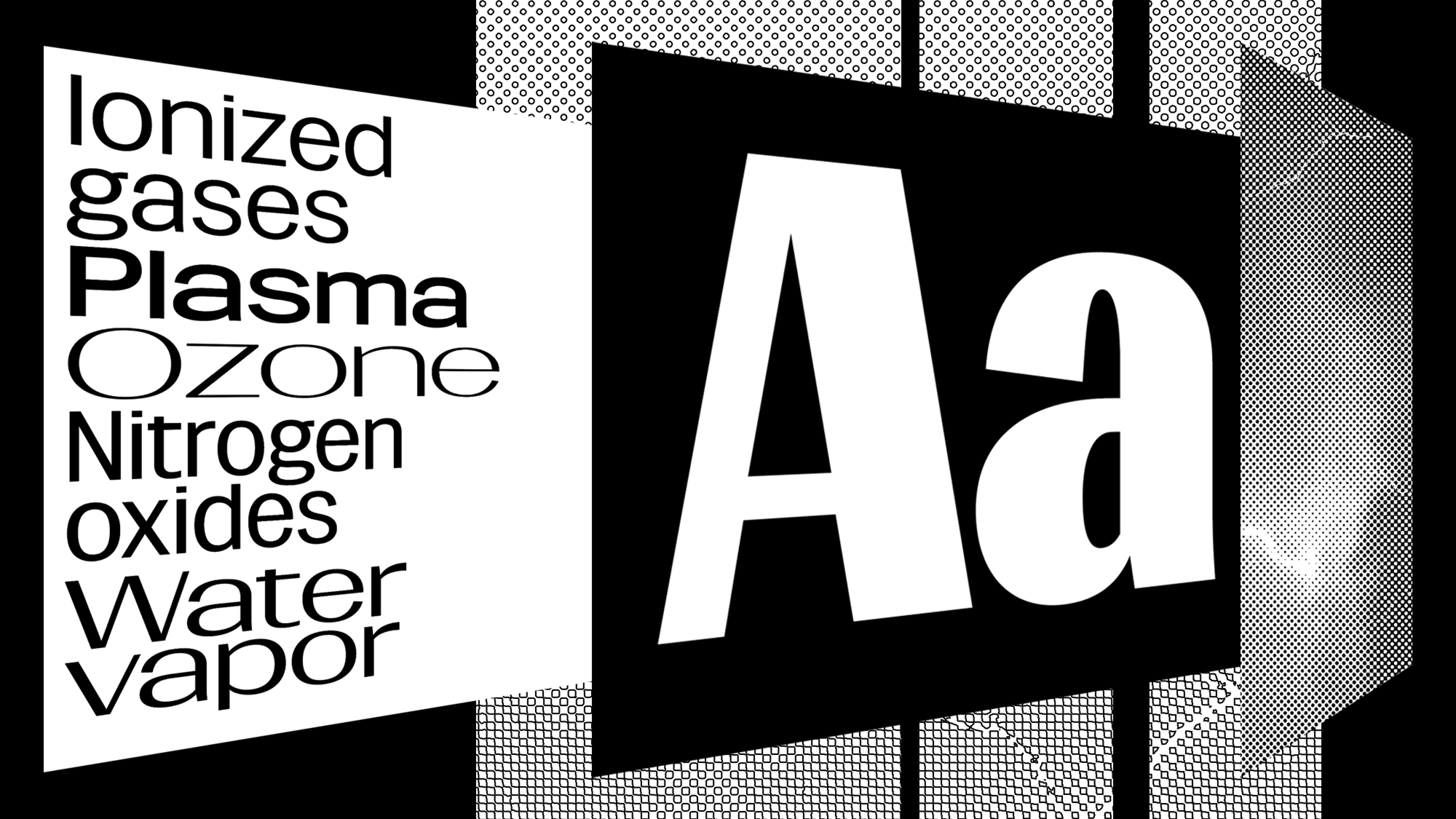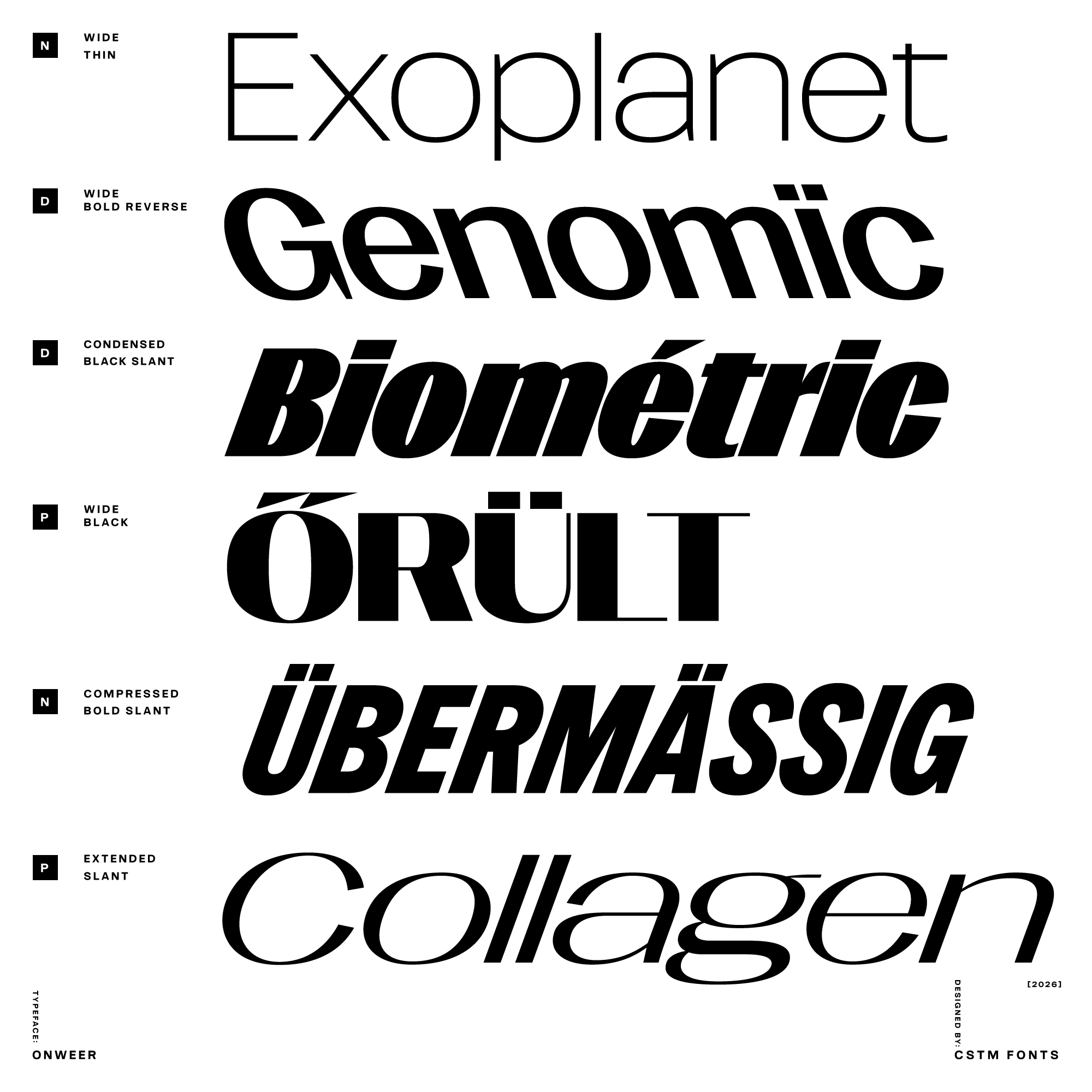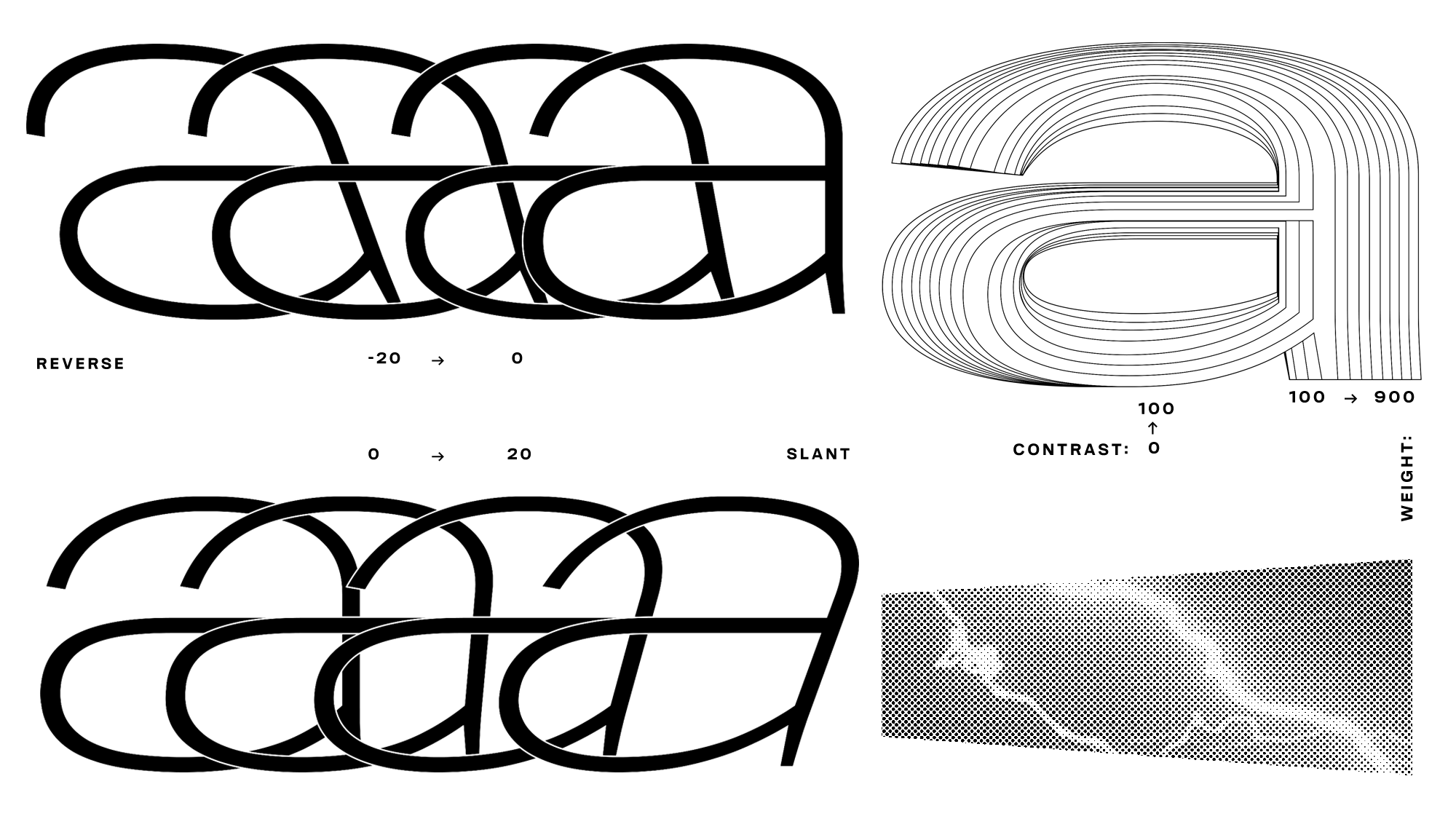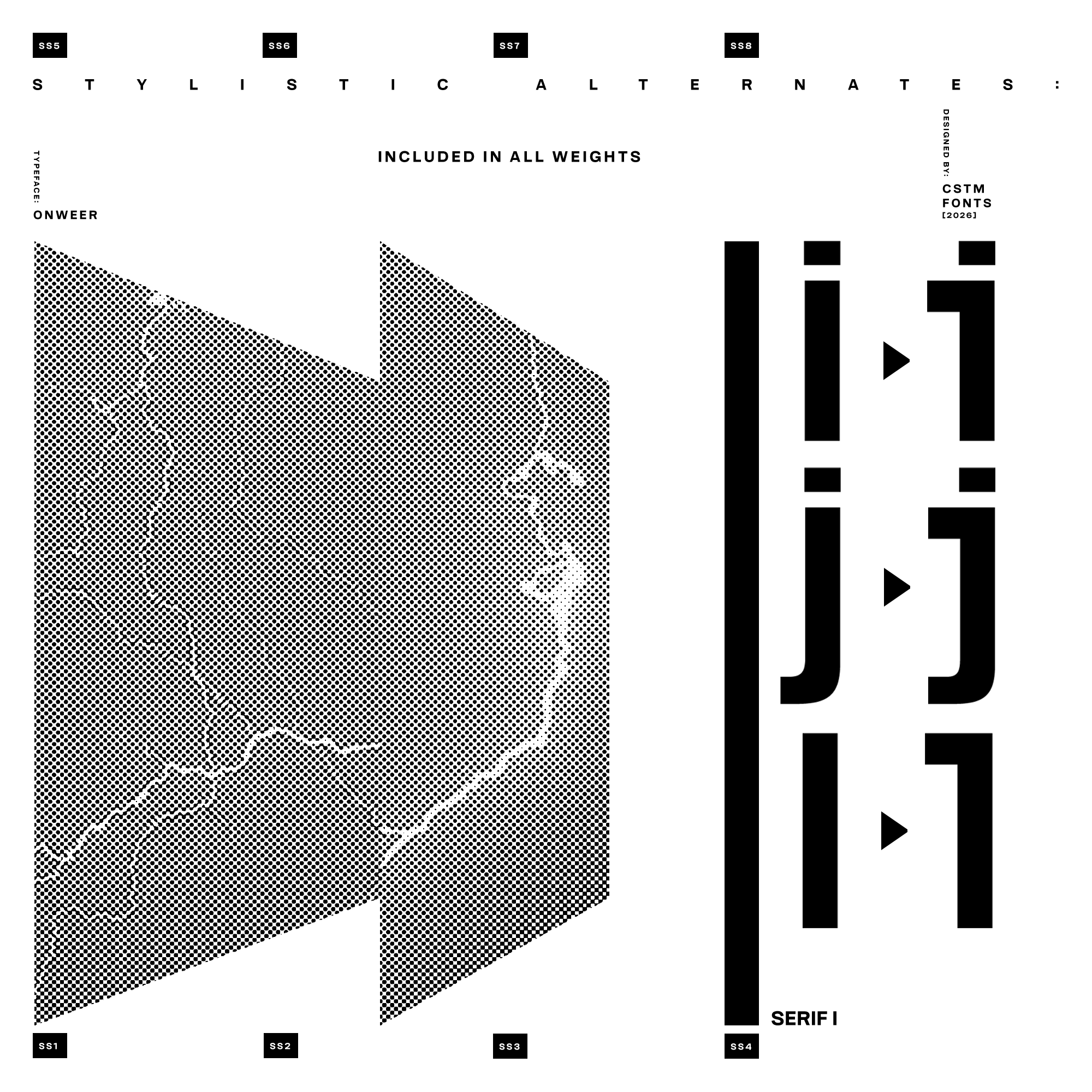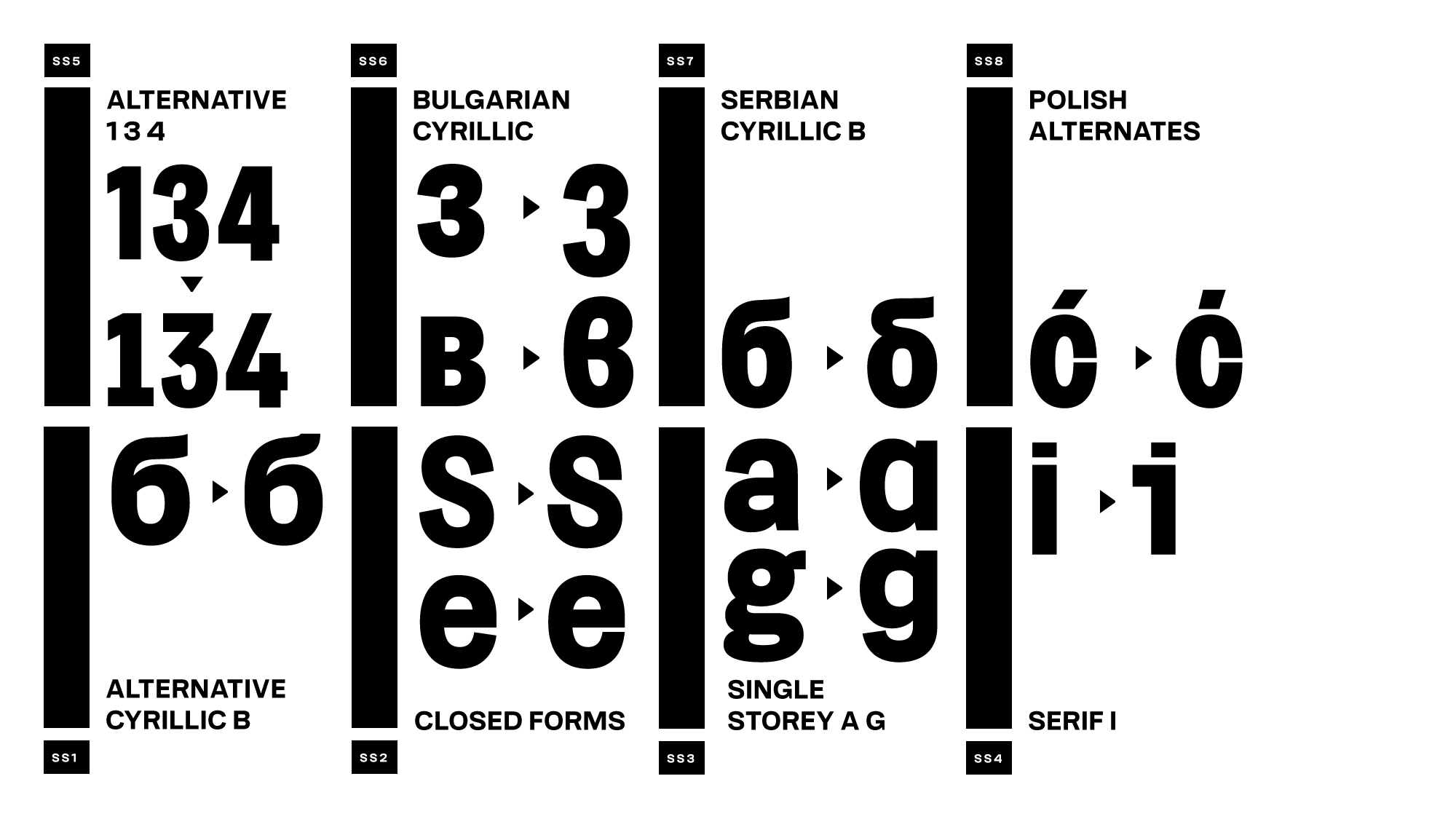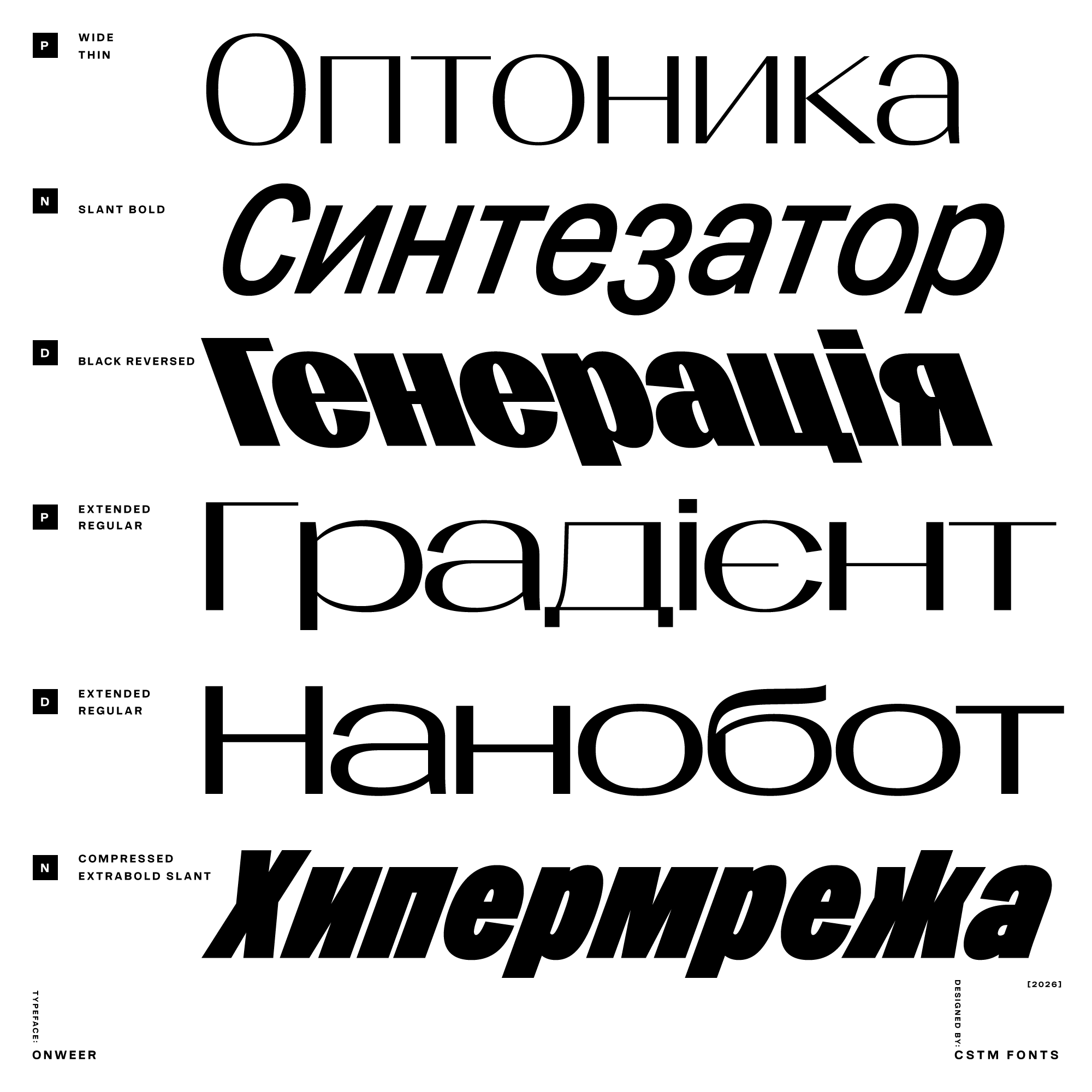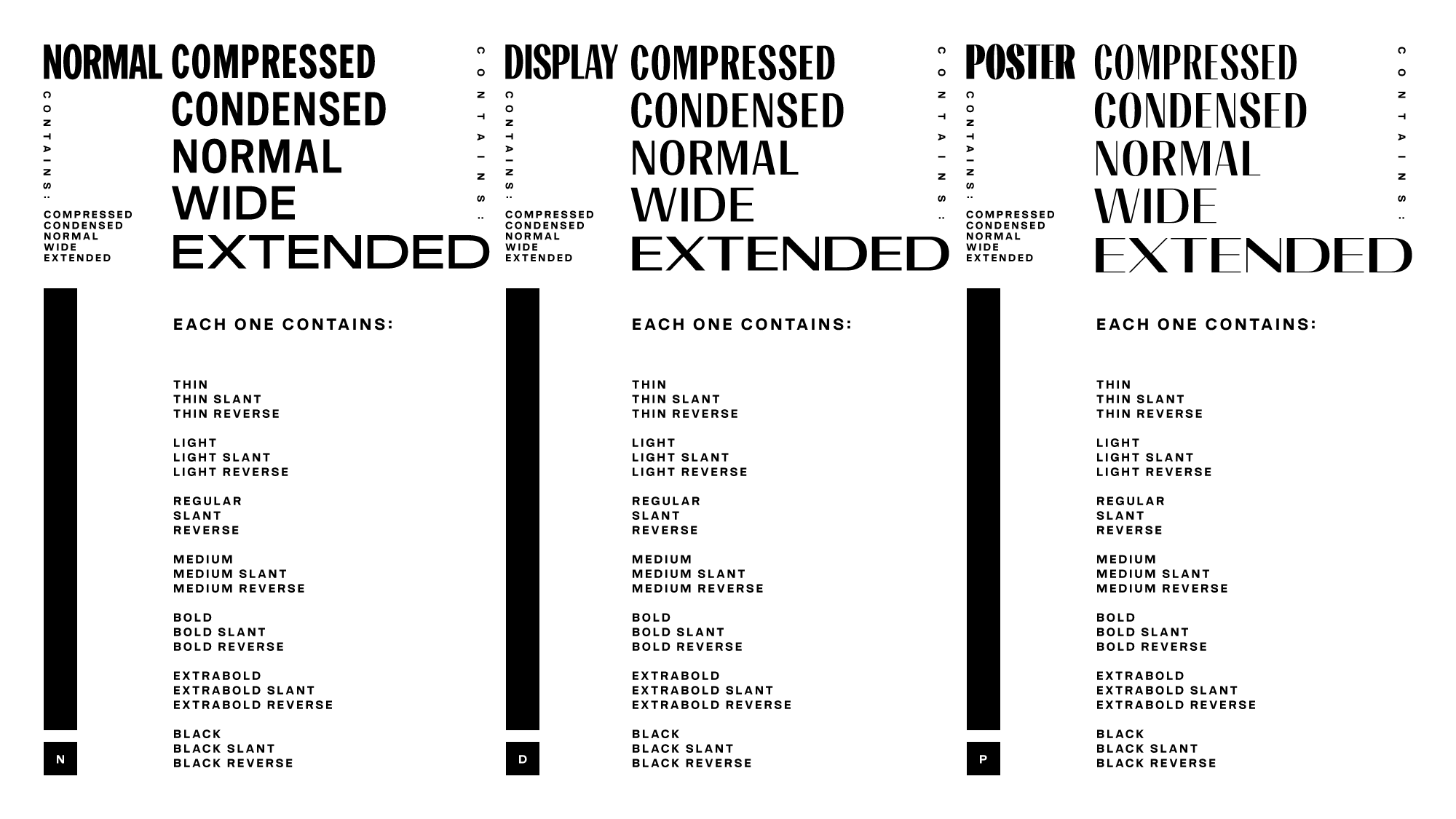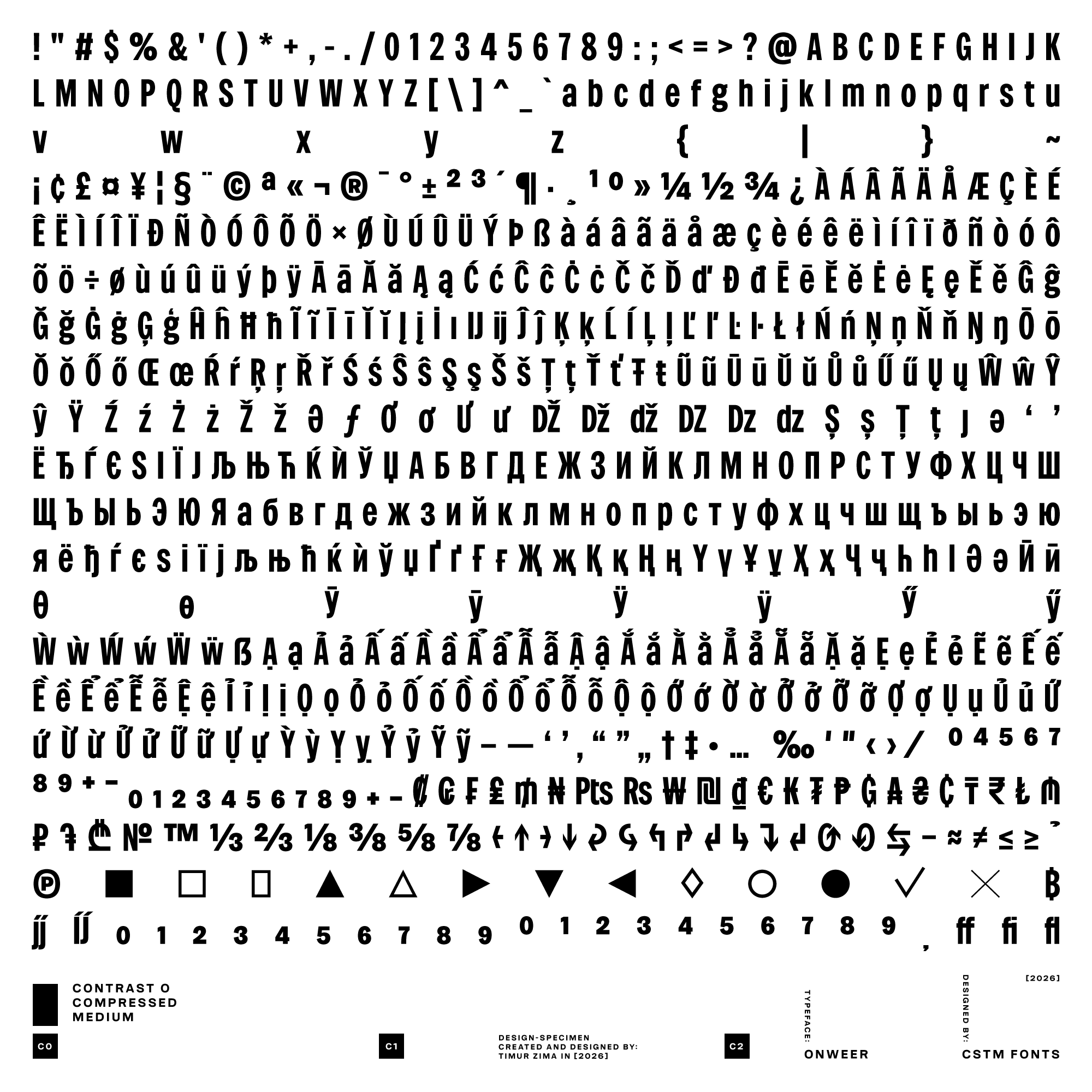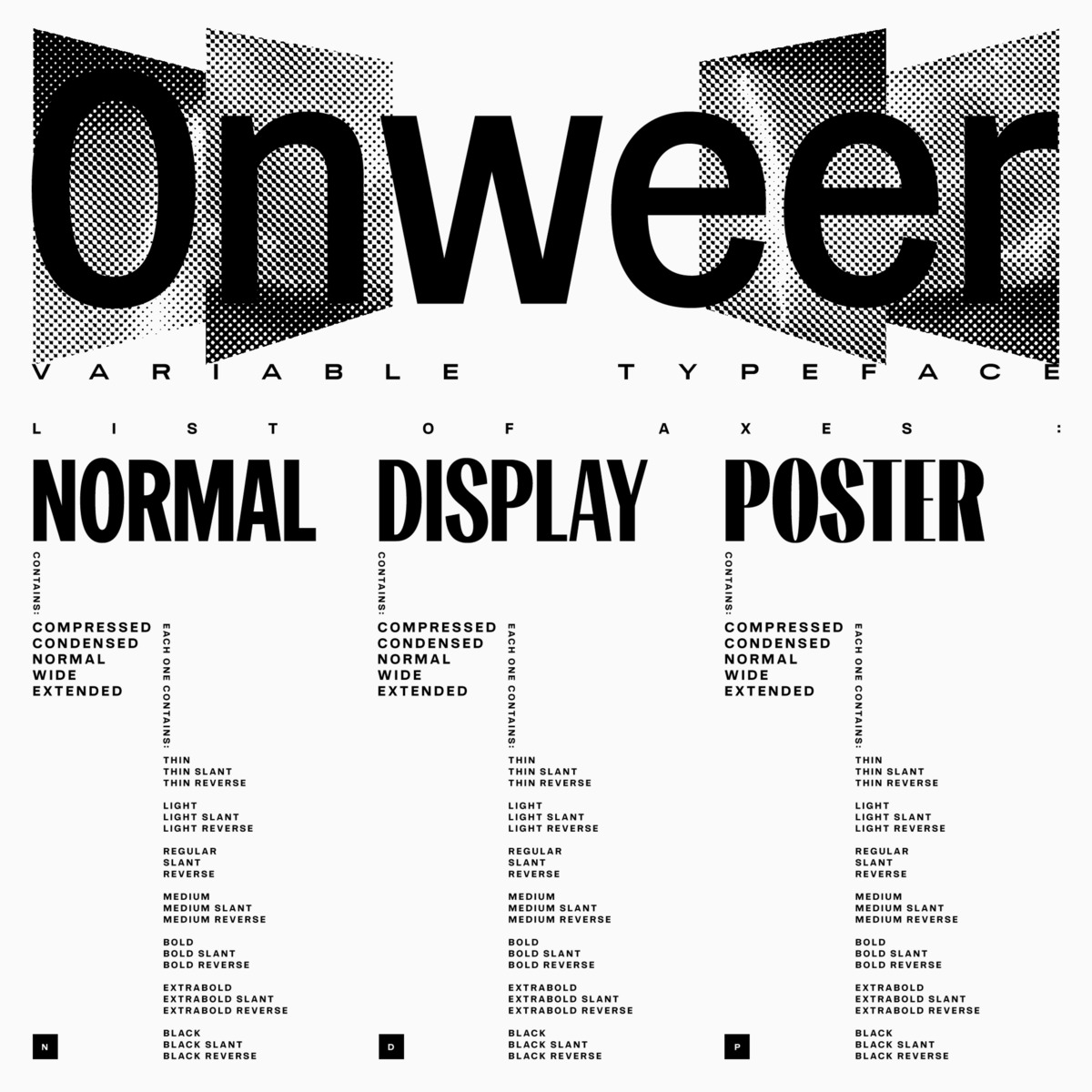
Onweer is a slightly nostalgic take on Franklin Gothic, with a quiet luxury flavour that can be made louder through the slant axis, reaching dramatic angles of −20 and 20 degrees, or the more subtle contrast axis. The typeface takes little from its historical prototype and takes it in a radically different direction in the stylistic set featuring super closed forms.
Onweer feels just as at home as a single letter on a fashionable tote bag as it does as three lines neatly stacked in a footnote. It’s versatile enough to cover the design needs of an entire
Onweer — equipped with four variable
Besides CSTM Fonts, Mikhail Strukov contributed to the design of Onweer, while Alexander Lyubovenko assisted the studio with mastering.